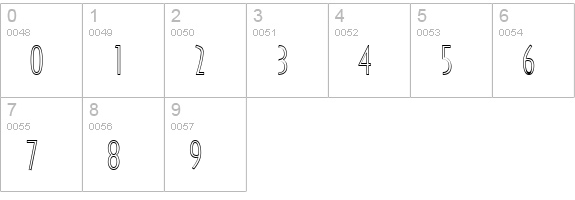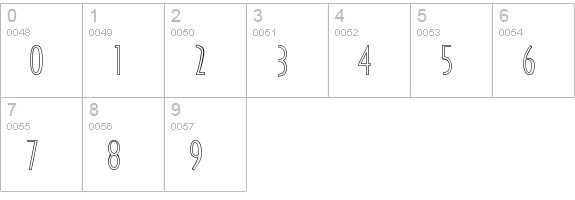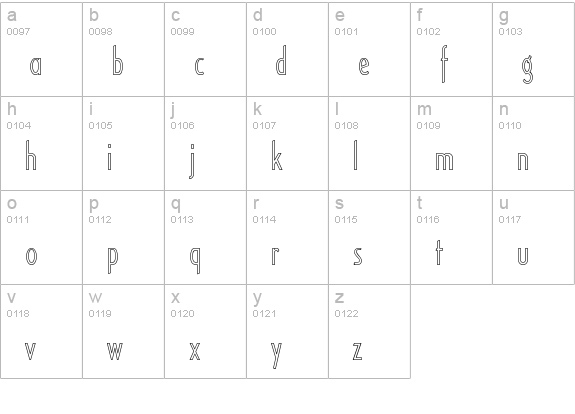
MirageOpen Font Details
MirageOpen is a stunning and versatile font that embodies elegance and modernity. With its sleek lines and stylish curves, MirageOpen is perfect for a wide range of design projects, from branding to editorial design. This font exudes sophistication and professionalism, making it a top choice for designers looking to elevate their work. The best part? MirageOpen is available for free download at FontsMarket.com. This means that you can easily access this premium font without any cost, making it a valuable addition to your font library. Whether you're designing a logo, creating a poster, or working on a website, MirageOpen is sure to make a powerful statement and leave a lasting impression. Download MirageOpen today and take your designs to the next level!